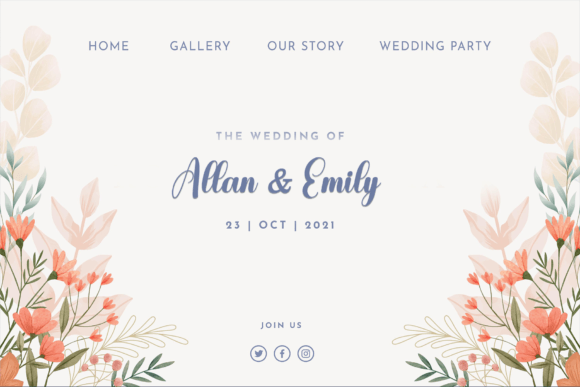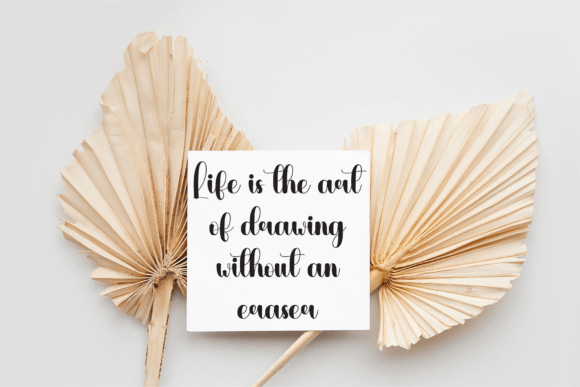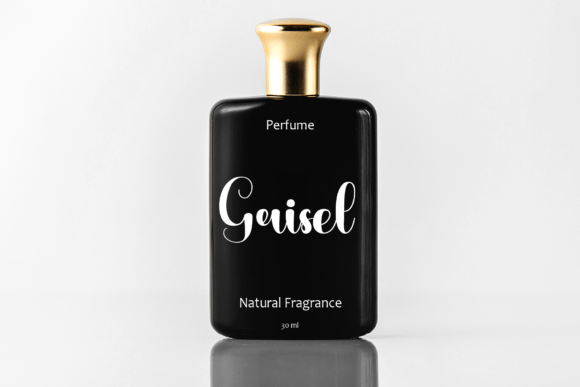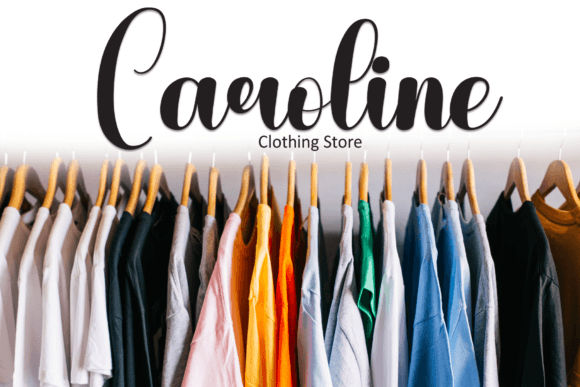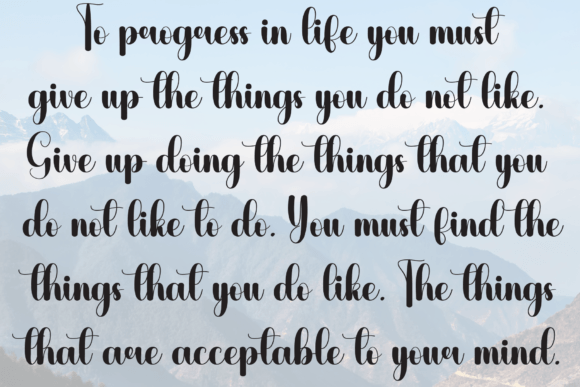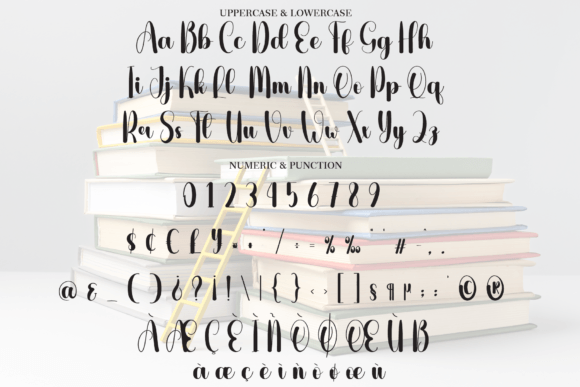
Education Font: Adding a Lovely Touch to Your Designs
Education is a sweet and friendly handwritten font that has been gaining popularity among designers and crafters. Its fresh and casual style makes it an ideal choice for writing wedding invitations, cards, or any other design that might need a lovely touch. In this article, we’ll dive into the world of Education Font and explore its features, benefits, and uses.
What is Education Font?
Education Font is a type of handwritten font that is designed to resemble a friendly and approachable writing style. It’s characterized by its rounded edges, flowing lines, and sweet letterforms. The font is perfect for creating designs that require a personal touch, such as wedding invitations, greeting cards, and other paper crafts.
Key Features of Education Font
- Handwritten style: Education Font has a genuine handwritten look that adds a personal touch to your designs.
- Fresh and casual: The font has a fresh and casual feel that’s perfect for creating designs that are relaxed and informal.
- Easy to read: Despite its handwritten style, Education Font is easy to read and understand, making it perfect for body text and headings.
- Versatile: Education Font can be used for a wide range of design projects, from wedding invitations to social media graphics.
Benefits of Using Education Font
So, why should you use Education Font in your designs? Here are just a few benefits:
- Adds a personal touch: Education Font adds a personal touch to your designs, making them feel more approachable and friendly.
- Creates a emotional connection: The sweet and friendly style of Education Font can help create an emotional connection with your audience.
- Perfect for DIY projects: Education Font is ideal for DIY projects, such as crafting and scrapbooking.
- Great for branding: Education Font can be used to create a consistent brand identity that’s friendly and approachable.
Using Education Font in Your Designs
Education Font is a versatile font that can be used in a wide range of design projects. Here are a few ideas to get you started:
- Wedding invitations: Education Font is perfect for creating beautiful and elegant wedding invitations.
- Greeting cards: Use Education Font to create personalized greeting cards for special occasions.
- Social media graphics: Education Font can be used to create engaging social media graphics that are friendly and approachable.
- Paper crafts: Education Font is ideal for paper crafts, such as scrapbooking and card making.
Tips for Using Education Font
Here are a few tips for using Education Font in your designs:
- Use it sparingly: Education Font is best used sparingly, as it can be overwhelming if used too much.
- Pair it with other fonts: Education Font can be paired with other fonts to create a unique and interesting design.
- Experiment with colors: Education Font looks great in a variety of colors, so don’t be afraid to experiment.
- Keep it simple: Education Font is perfect for simple designs, so keep your design clean and uncluttered.
Education Font is a sweet and friendly handwritten font that’s perfect for adding a lovely touch to your designs. Its fresh and casual style makes it ideal for a wide range of design projects, from wedding invitations to social media graphics. With its easy-to-read letterforms and versatile style, Education Font is a great choice for designers and crafters looking to add a personal touch to their designs.